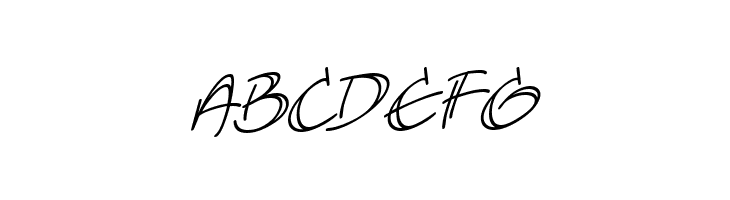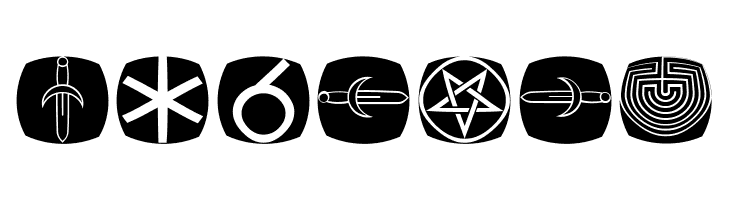
A bold, modern font with clean lines and strong geometric shapes.
Bold and italicized font with a modern and dynamic style.
A modern, italic font with clean lines and balanced proportions.
A modern, medium-weight italic font with clean lines and a dynamic appearance.
A bold, framed font inspired by traditional Asian calligraphy with a modern twist.
A bold, geometric font inspired by traditional Asian calligraphy, enclosed in rectangular frames.
A bold, fluid script font with dramatic, calligraphic strokes.
A hand-drawn, irregular font with bold, jagged strokes and a quirky, organic feel.
A bold, geometric font with a modern and clean aesthetic.
A dynamic, handwritten-style font with expressive, uneven strokes.
A bold, slab serif font with high contrast and a strong, authoritative presence.
A bold, high-contrast serif font with dramatic strokes and pronounced serifs.
A bold, high-contrast serif font with prominent serifs and strong visual impact.
A whimsical and decorative font with intricate loops and artistic flair.
A bold, decorative font with intricate swirls and loops.
A decorative font with ornate loops and curls, offering a whimsical and artistic flair.
A flowing, cursive font with elegant loops and artistic flair.
A playful, whimsical script font with flowing, interconnected letters.
A bold, modern collection of abstract and geometric symbols with high contrast.
A decorative symbol font blending Celtic, astrological, and mythological imagery.
Decorative symbol font with zodiac and astrology-themed icons.
Bold, geometric font with thick strokes and tight spacing for a strong, modern look.
A bold, geometric font with a retro-modern style, ideal for impactful headlines.
A bold, geometric font with a futuristic and strong aesthetic.
A modern serif font with balanced proportions and versatile applications.
A bold serif font with strong, elegant characters ideal for headlines.
A modern serif font with sharp edges and balanced proportions.
A modern, geometric font with clean lines and uniform structure.
A playful, sketch-like handwritten font with dynamic strokes and a casual feel.
A dynamic, cursive script font with an italicized, handwritten style.
A playful, hand-drawn font with a sketch-like, artistic style.
A dynamic, italicized handwritten font with a sketch-like appearance.